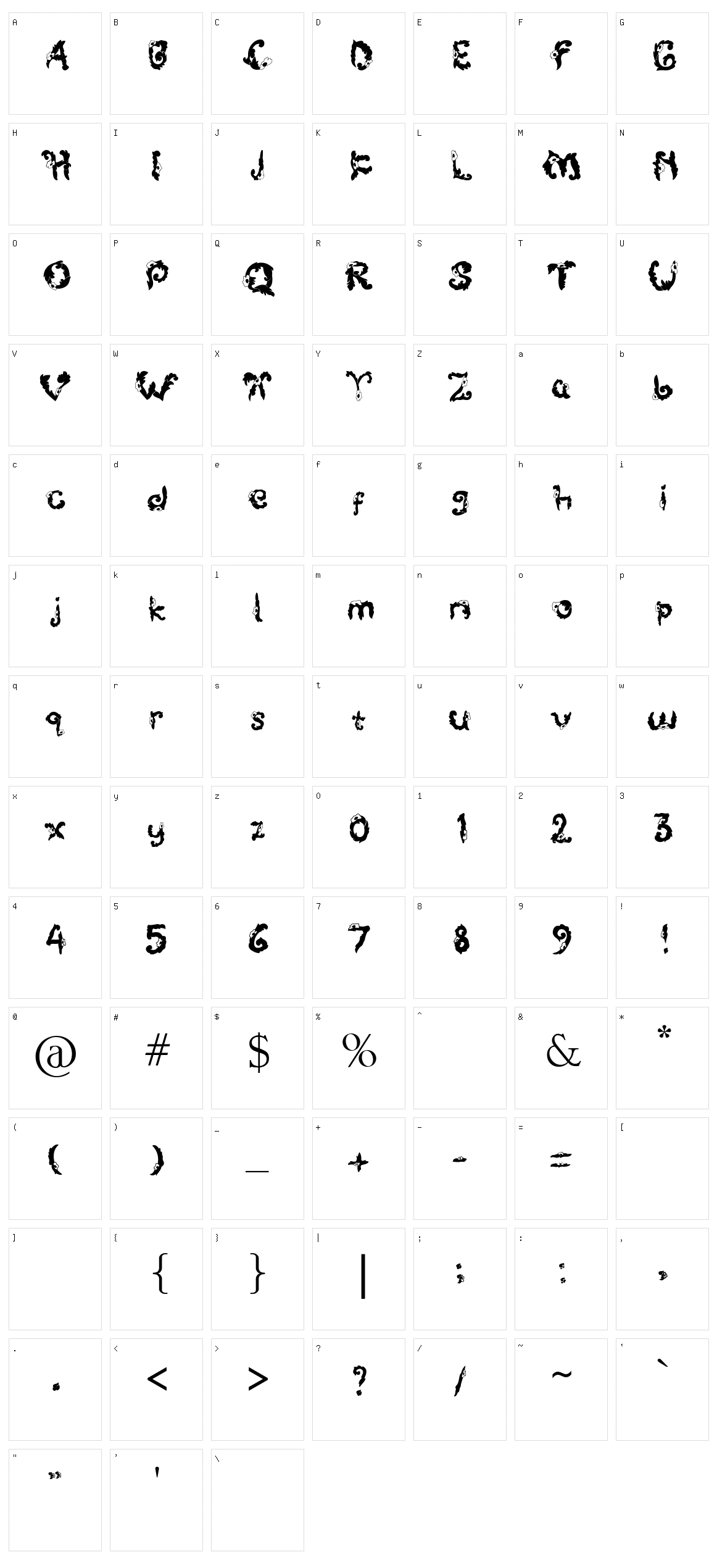
The free font Patra Cina is carefully designed by Diyah Ayu, showcasing a thoughtful balance of creativity and usability and falls under the Decorative font style. When you download the ZIP file, it contains only 54.42 KB of font files, making it lightweight and quick to download. Please review the license details below to understand permitted usage and distribution rights. If license information is not available, we recommend using this font for personal projects only or contacting the author directly for commercial usage permissions.